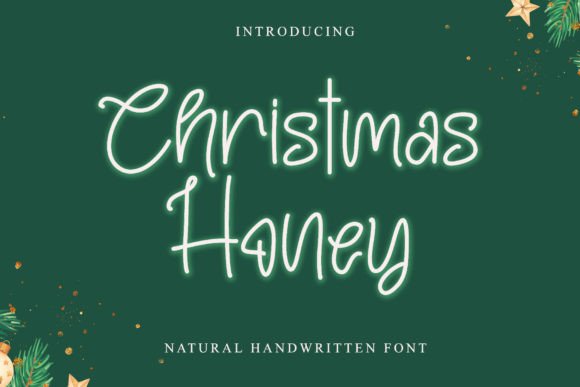
Dive into the world of sophistication and charm with Christmas Honey, a captivating script font that exudes elegance and warmth. Inspired by the festive spirit of Christmas, this delightful font dances across your designs like snowflakes on a winter's day. Its graceful strokes and delicate curves add a touch of whimsy and playfulness, making it perfect for various creative projects.
Whether you're designing a Christmas card, a wedding invitation, or a heartwarming branding project, Christmas Honey will undoubtedly add a touch of timeless beauty and charm. Its versatility extends beyond the holiday season, making it a perfect choice for any project that requires a touch of elegance and playfulness.
Step into the enchanting world of Christmas Honey and let your creativity soar. Its smooth, flowing lines and charming details will elevate your designs to new heights, leaving a lasting impression on your audience. Embrace the festive spirit and let your imagination run wild with this captivating script font.